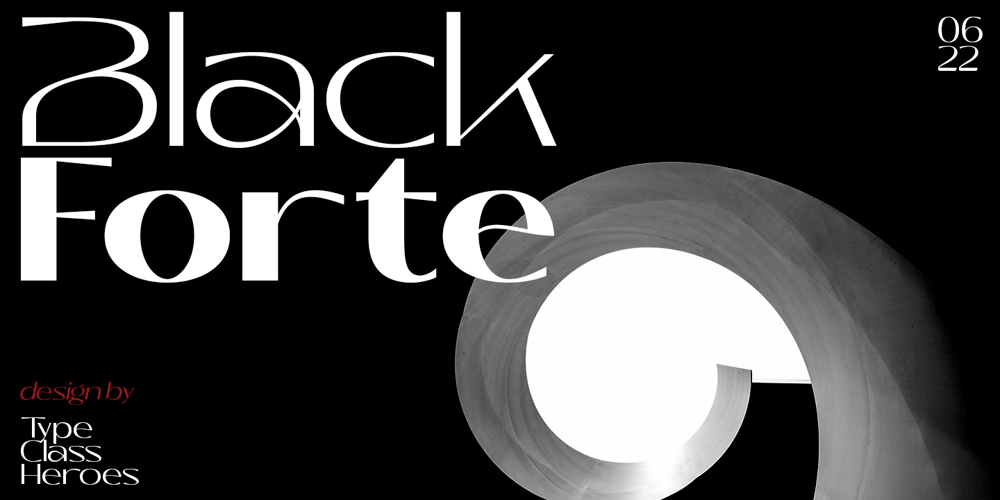
Black Forte Font Family was designed by Pande Made and published by TypeClassHeroes. Black Forte contains 9 styles and family package options. Black Forte is a sans serif display with various width and weight that you can explore and combine. use this font for any branding, product packaging, invitation, quotes, t-shirt, label, poster, logo etc.Feature Uppercase & Lowercase Number & Symbol International Glyphs Multilingual support Feel free to drop us a message f you have any questionsHope you enjoy it.